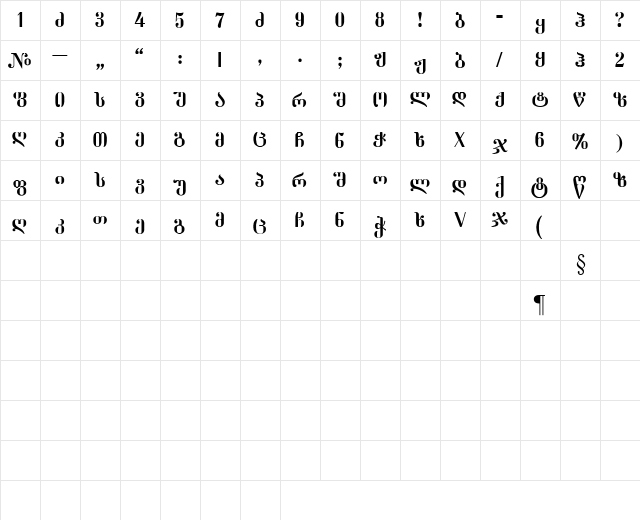
Dumbadze Normal
Design Context for Dumbadze Typeface
Dumbadze is a composed and adaptable typeface that performs quietly and consistently across a wide range of design contexts.